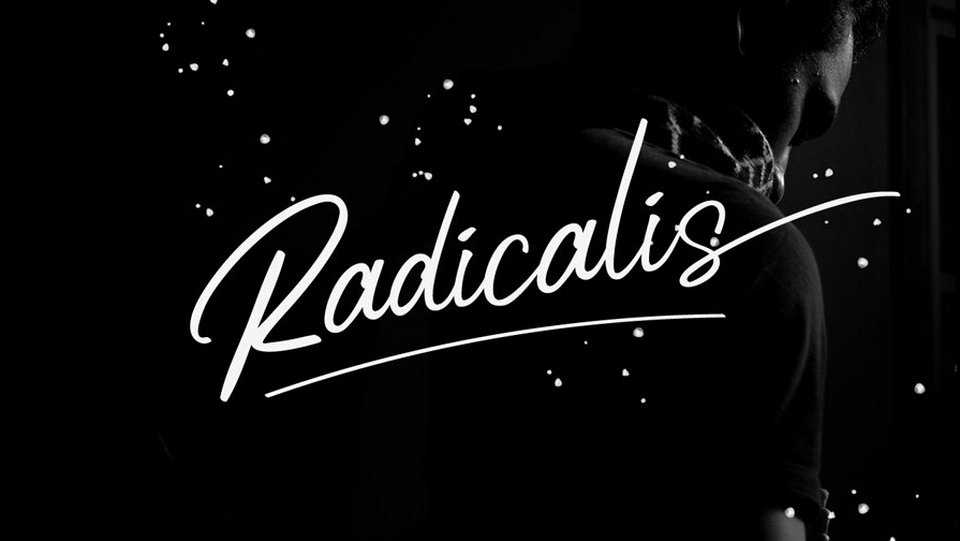
Download Radicalis Script – is an attractive modern handwritten font. It perfectly suits for personal branding, signature style logo, social media, banners, letters, cards and other beautiful projects.